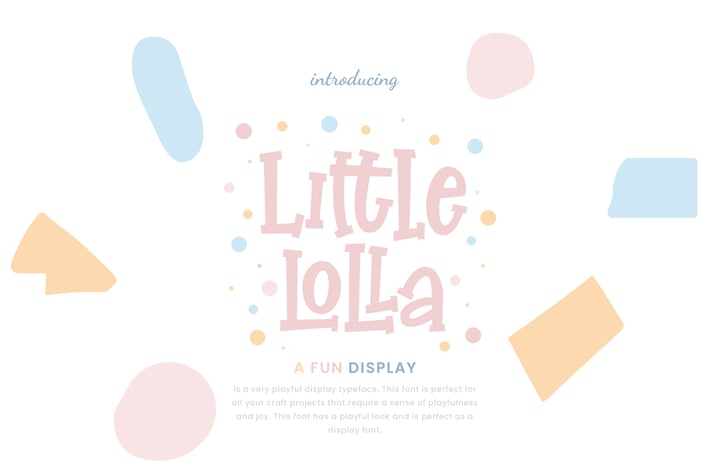
Little Lolla Fun Advertisement Font
Little Lolla is a very playful display typeface. This font is perfect for all your craft projects that require a sense of playfulness and joy. This font has a playful look and is perfect as a display font.
Little Lolla is perfect for branding projects, logo, wedding designs, social media posts, advertisements, product packaging, product designs, label, photography, watermark, invitation, stationery and any projects that need handwriting taste.
Ton of glyphs
Ligature & Alternate